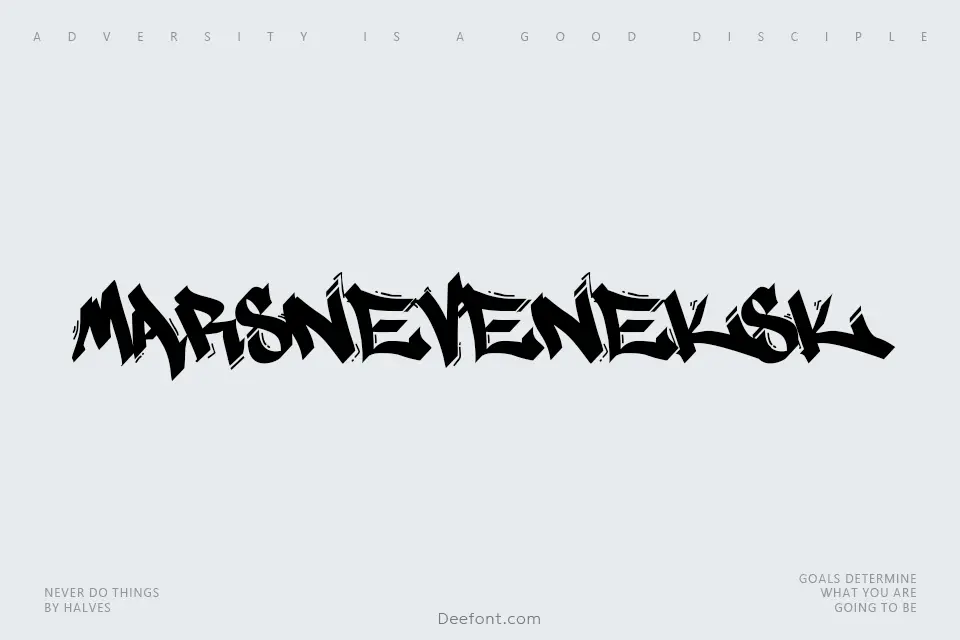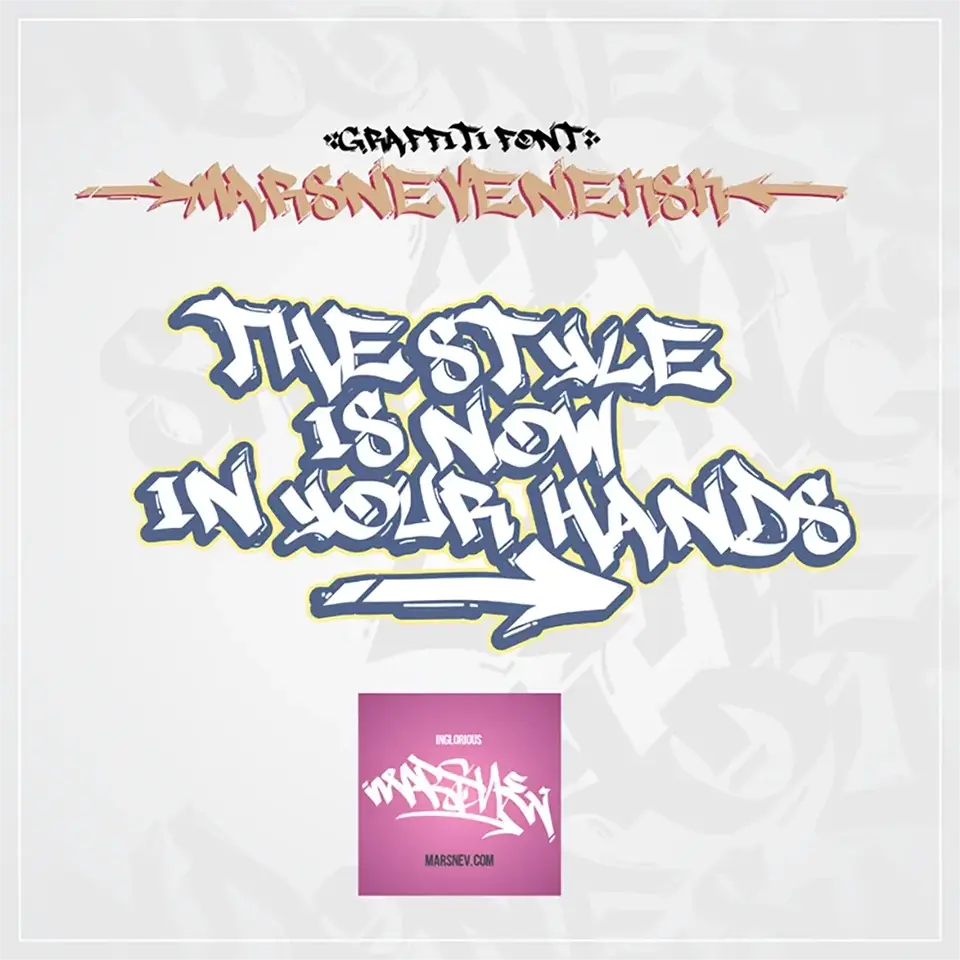
Marsneveneksk Font
Marsneveneksk is a dynamic, graffiti-inspired display font that captures raw urban energy with its jagged, handcrafted aesthetic. Designed for bold impact, this expansive typeface features irregular strokes and uneven edges that create a captivating sense of spontaneity. Ideal for eye-catching headlines, logos, gritty editorial layouts, and street-inspired branding, Marsneveneksk conveys edgy, rebellious style. Its expressive nature and versatility make it an excellent choice for designers seeking powerful typography that demands attention.